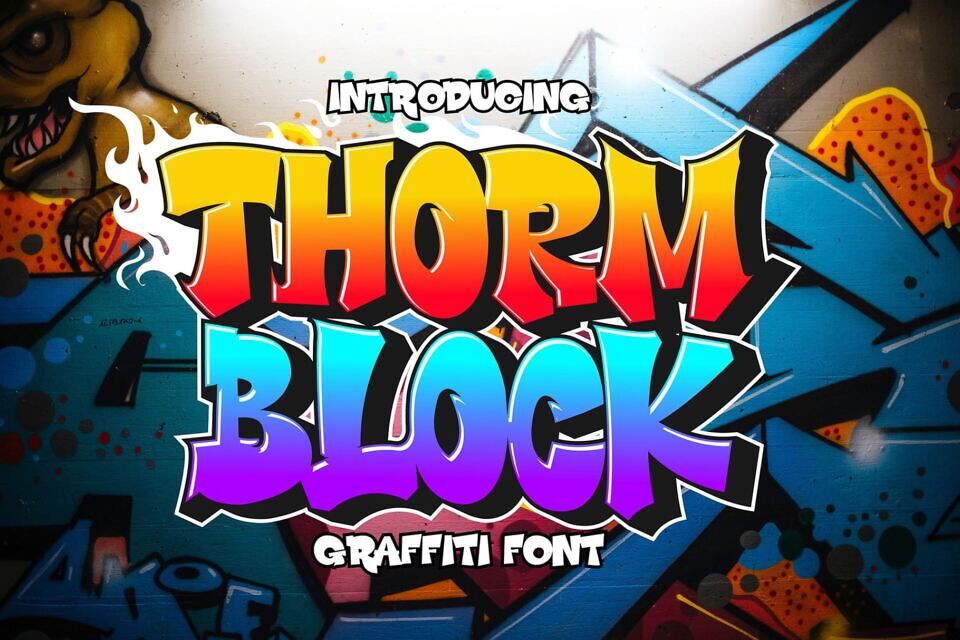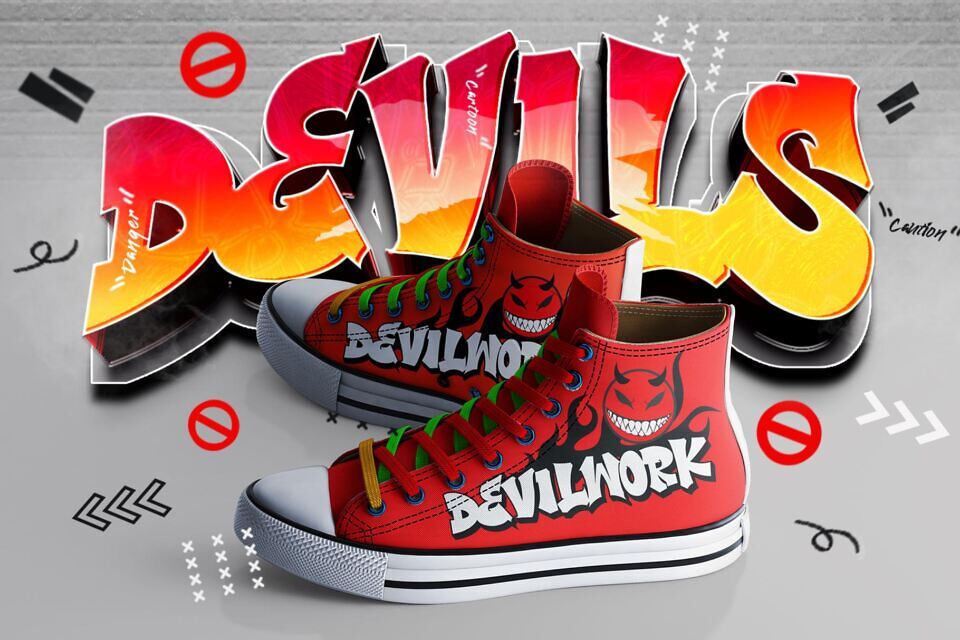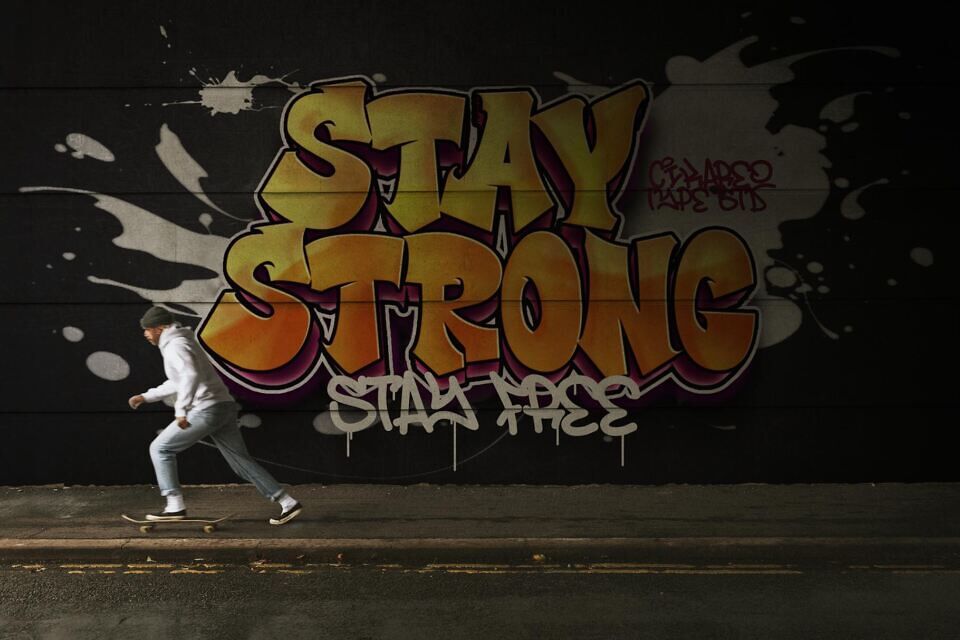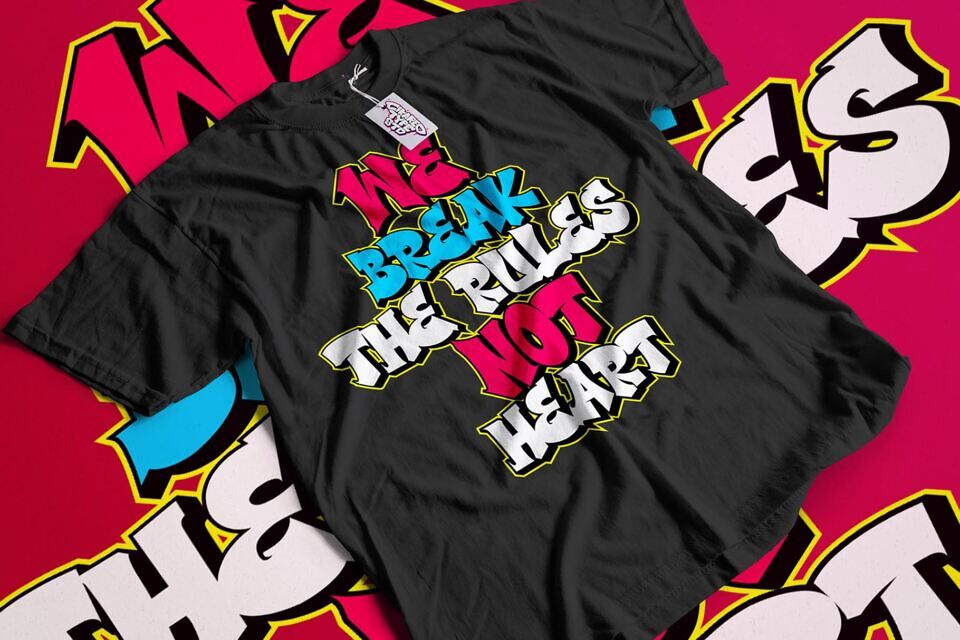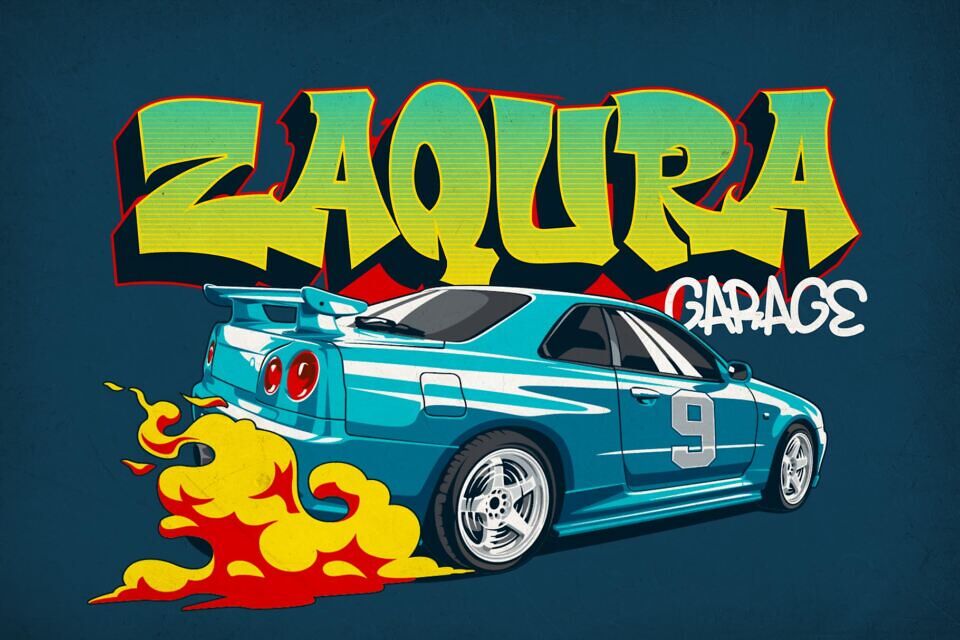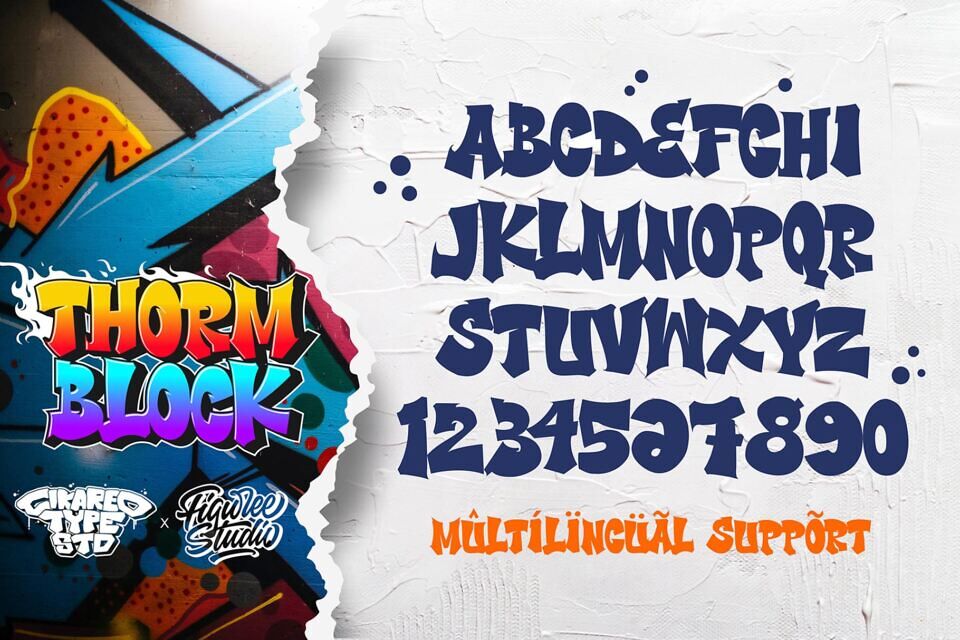
Thorm Black is a spectacular Display font with a Fatty and Cools graffiti style for your design to look awesome. It will elevate a wide range of design projects to the highest level, be it branding, headings, designs, invitations, signatures, logotype, Streetwear, wall art illustration, apparel, labels, and much more!